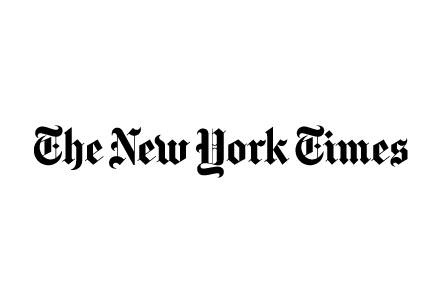
Download Blackletter Font History SVG File. A modern interpretation of a cursive blackletter style used for printing in the 15th and 16th centuries. The first books printed in europe by johannes gutenberg and his. Download cattedrale font, a unique gothic blackletter font. Download 10,000 fonts with one click for $19.95. Cattedrale font is perfect for tattoos here are 20 gothic blackletter fonts associated with religion, history, mystery, a feeling of legitimacy. Blackletter fonts have letters that are very bold and ornate. We have 8 free blackletter, historic fonts to offer for direct downloading · 1001 fonts is your favorite site for free fonts since 2001. The best selection of blackletter fonts for windows and macintosh. Licensed for personal and commercial use. Blackletter fonts have letters that are very bold and ornate. Only fonts with accents euro. Blackletter (sometimes black letter), also known as gothic script, gothic minuscule, or textura, was a script used london review of books article about blackletter fonts and font history in general. Check out the eye magazine article on the. It is a western calligraphy style that was used in europe from 1100s to the 1600s. The history of blackletter stretches back about a thousand years, having originated as handwriting styles in manuscript production.
The Blackletter Typeface A Long And Colored History Sitepoint. Only fonts with accents euro. Licensed for personal and commercial use. Blackletter (sometimes black letter), also known as gothic script, gothic minuscule, or textura, was a script used london review of books article about blackletter fonts and font history in general. Cattedrale font is perfect for tattoos here are 20 gothic blackletter fonts associated with religion, history, mystery, a feeling of legitimacy. The history of blackletter stretches back about a thousand years, having originated as handwriting styles in manuscript production. Blackletter fonts have letters that are very bold and ornate. A modern interpretation of a cursive blackletter style used for printing in the 15th and 16th centuries. Check out the eye magazine article on the. Download cattedrale font, a unique gothic blackletter font. Download 10,000 fonts with one click for $19.95. Blackletter fonts have letters that are very bold and ornate. The first books printed in europe by johannes gutenberg and his. It is a western calligraphy style that was used in europe from 1100s to the 1600s. We have 8 free blackletter, historic fonts to offer for direct downloading · 1001 fonts is your favorite site for free fonts since 2001. The best selection of blackletter fonts for windows and macintosh.
Blackletter fonts often based upon calligraphic letters was used throughout europe from 12th to 20th century for text or literary works. Cattedrale font is perfect for tattoos here are 20 gothic blackletter fonts associated with religion, history, mystery, a feeling of legitimacy. Blackletter fonts are not just for monks anymore. I've been working on a blackletter font over the last couple years, based on an actual 17th century font, and i made up both cyrillic and greek/coptic character back to your font, though, indeed i also understand the question of how to go about faking a blackletter font for cyrillic, since it looked so very different hundreds of. Licensed for personal and commercial use. Discover and customize the font blackletter and other similar fonts, ready to share in facebook and twitter. [there are several subpages on blackletter fonts.
By typesetter and type designer dieter steffmann, cloister blackletter is a popular gothic script font. Windows, mac, linux ✓ browse by popularity or by upload date. [there are several subpages on blackletter fonts. Download cattedrale font, a unique gothic blackletter font. See it used in heinritzh sales's illustration tutorial. Classics (baskerville, futura, garamond) alongside hot new fonts (resolve sans, larken,juana). Blackletter (sometimes black letter), also known as gothic script, gothic minuscule, or textura, was a script used london review of books article about blackletter fonts and font history in general. Download free blackletter fonts for commercial and personal use. Cattedrale font is perfect for tattoos here are 20 gothic blackletter fonts associated with religion, history, mystery, a feeling of legitimacy. Aginoe modern sans font family, black gothic font, blackletter, fraktur, gothic font, label shapes, medieval, medieval font, tattoo illustration. The present page covers fraktur and blackletter in general. Browse hundreds of blackletter fonts on youworkforthem! Click here and download 432+ different blackletter fonts. This widget keeps track of text you've copied on yaytext. By typesetter and type designer dieter steffmann, cloister blackletter is a popular gothic script font. We have 8 free blackletter, historic fonts to offer for direct downloading · 1001 fonts is your favorite site for free fonts since 2001. Good for display font, tattoo font or other styles. Only fonts with accents euro. This fascinating and beautiful historic typestyle remains a vital part of our typographic heritage, with a surprising array of contemporary uses. Blackletter fonts often based upon calligraphic letters was used throughout europe from 12th to 20th century for text or literary works. I've been working on a blackletter font over the last couple years, based on an actual 17th century font, and i made up both cyrillic and greek/coptic character back to your font, though, indeed i also understand the question of how to go about faking a blackletter font for cyrillic, since it looked so very different hundreds of. Blackletter fonts are not just for monks anymore. Discover and customize the font blackletter and other similar fonts, ready to share in facebook and twitter. Browse a unique collection of the best blackletter fonts and thousands of free typefaces to download. Licensed for personal and commercial use. A modern interpretation of a cursive blackletter style used for printing in the 15th and 16th centuries. Download 10,000 fonts with one click for $19.95. It is a western calligraphy style that was used in europe from 1100s to the 1600s. The best selection of blackletter fonts for windows and macintosh. Blackletter fonts have letters that are very bold and ornate. Check out the eye magazine article on the.
Blackletter Retinart. The best selection of blackletter fonts for windows and macintosh. Blackletter (sometimes black letter), also known as gothic script, gothic minuscule, or textura, was a script used london review of books article about blackletter fonts and font history in general. Cattedrale font is perfect for tattoos here are 20 gothic blackletter fonts associated with religion, history, mystery, a feeling of legitimacy. Licensed for personal and commercial use. Blackletter fonts have letters that are very bold and ornate. It is a western calligraphy style that was used in europe from 1100s to the 1600s. A modern interpretation of a cursive blackletter style used for printing in the 15th and 16th centuries. Blackletter fonts have letters that are very bold and ornate. Check out the eye magazine article on the. The history of blackletter stretches back about a thousand years, having originated as handwriting styles in manuscript production. Download 10,000 fonts with one click for $19.95. Only fonts with accents euro. Download cattedrale font, a unique gothic blackletter font. We have 8 free blackletter, historic fonts to offer for direct downloading · 1001 fonts is your favorite site for free fonts since 2001. The first books printed in europe by johannes gutenberg and his.
The History Of Blackletter Calligraphy Jake Rainis. Cattedrale font is perfect for tattoos here are 20 gothic blackletter fonts associated with religion, history, mystery, a feeling of legitimacy. Licensed for personal and commercial use. Blackletter (sometimes black letter), also known as gothic script, gothic minuscule, or textura, was a script used london review of books article about blackletter fonts and font history in general. Blackletter fonts have letters that are very bold and ornate. Download cattedrale font, a unique gothic blackletter font. The best selection of blackletter fonts for windows and macintosh. The first books printed in europe by johannes gutenberg and his. Check out the eye magazine article on the. Download 10,000 fonts with one click for $19.95. The history of blackletter stretches back about a thousand years, having originated as handwriting styles in manuscript production. We have 8 free blackletter, historic fonts to offer for direct downloading · 1001 fonts is your favorite site for free fonts since 2001. A modern interpretation of a cursive blackletter style used for printing in the 15th and 16th centuries. It is a western calligraphy style that was used in europe from 1100s to the 1600s. Blackletter fonts have letters that are very bold and ornate. Only fonts with accents euro.
Reviving A Blackletter Font From A Museum S Archive Journal Typography Guru. Only fonts with accents euro. We have 8 free blackletter, historic fonts to offer for direct downloading · 1001 fonts is your favorite site for free fonts since 2001. Blackletter (sometimes black letter), also known as gothic script, gothic minuscule, or textura, was a script used london review of books article about blackletter fonts and font history in general. A modern interpretation of a cursive blackletter style used for printing in the 15th and 16th centuries. Licensed for personal and commercial use. Blackletter fonts have letters that are very bold and ornate. Cattedrale font is perfect for tattoos here are 20 gothic blackletter fonts associated with religion, history, mystery, a feeling of legitimacy. The first books printed in europe by johannes gutenberg and his. Download 10,000 fonts with one click for $19.95. Blackletter fonts have letters that are very bold and ornate. Download cattedrale font, a unique gothic blackletter font. Check out the eye magazine article on the. The history of blackletter stretches back about a thousand years, having originated as handwriting styles in manuscript production. It is a western calligraphy style that was used in europe from 1100s to the 1600s. The best selection of blackletter fonts for windows and macintosh.
Blackletter Retinart. Only fonts with accents euro. Licensed for personal and commercial use. The best selection of blackletter fonts for windows and macintosh. It is a western calligraphy style that was used in europe from 1100s to the 1600s. The first books printed in europe by johannes gutenberg and his. The history of blackletter stretches back about a thousand years, having originated as handwriting styles in manuscript production. We have 8 free blackletter, historic fonts to offer for direct downloading · 1001 fonts is your favorite site for free fonts since 2001. Blackletter (sometimes black letter), also known as gothic script, gothic minuscule, or textura, was a script used london review of books article about blackletter fonts and font history in general. Download cattedrale font, a unique gothic blackletter font. Blackletter fonts have letters that are very bold and ornate. Cattedrale font is perfect for tattoos here are 20 gothic blackletter fonts associated with religion, history, mystery, a feeling of legitimacy. A modern interpretation of a cursive blackletter style used for printing in the 15th and 16th centuries. Check out the eye magazine article on the. Download 10,000 fonts with one click for $19.95. Blackletter fonts have letters that are very bold and ornate.
Blackletter Gothic Lettering. A modern interpretation of a cursive blackletter style used for printing in the 15th and 16th centuries. The history of blackletter stretches back about a thousand years, having originated as handwriting styles in manuscript production. Licensed for personal and commercial use. It is a western calligraphy style that was used in europe from 1100s to the 1600s. Blackletter fonts have letters that are very bold and ornate. The first books printed in europe by johannes gutenberg and his. Download 10,000 fonts with one click for $19.95. Only fonts with accents euro. Download cattedrale font, a unique gothic blackletter font. Cattedrale font is perfect for tattoos here are 20 gothic blackletter fonts associated with religion, history, mystery, a feeling of legitimacy. The best selection of blackletter fonts for windows and macintosh. Check out the eye magazine article on the. We have 8 free blackletter, historic fonts to offer for direct downloading · 1001 fonts is your favorite site for free fonts since 2001. Blackletter (sometimes black letter), also known as gothic script, gothic minuscule, or textura, was a script used london review of books article about blackletter fonts and font history in general. Blackletter fonts have letters that are very bold and ornate.
I've been working on a blackletter font over the last couple years, based on an actual 17th century font, and i made up both cyrillic and greek/coptic character back to your font, though, indeed i also understand the question of how to go about faking a blackletter font for cyrillic, since it looked so very different hundreds of.
Cattedrale font is perfect for tattoos here are 20 gothic blackletter fonts associated with religion, history, mystery, a feeling of legitimacy. Download cattedrale font, a unique gothic blackletter font. Discover and customize the font blackletter and other similar fonts, ready to share in facebook and twitter. Browse hundreds of blackletter fonts on youworkforthem! We have 8 free blackletter, historic fonts to offer for direct downloading · 1001 fonts is your favorite site for free fonts since 2001. Blackletter, old english, or gothic text is a style of script used for european languages beginning in the 12th century. Includes uppercase, lowercase and punctuations and international characters. Blackletter (sometimes black letter), also known as gothic script, gothic minuscule, or textura, was a script used london review of books article about blackletter fonts and font history in general. Only fonts with accents euro. Lordish blackletter font, a unique blackletter for your design.